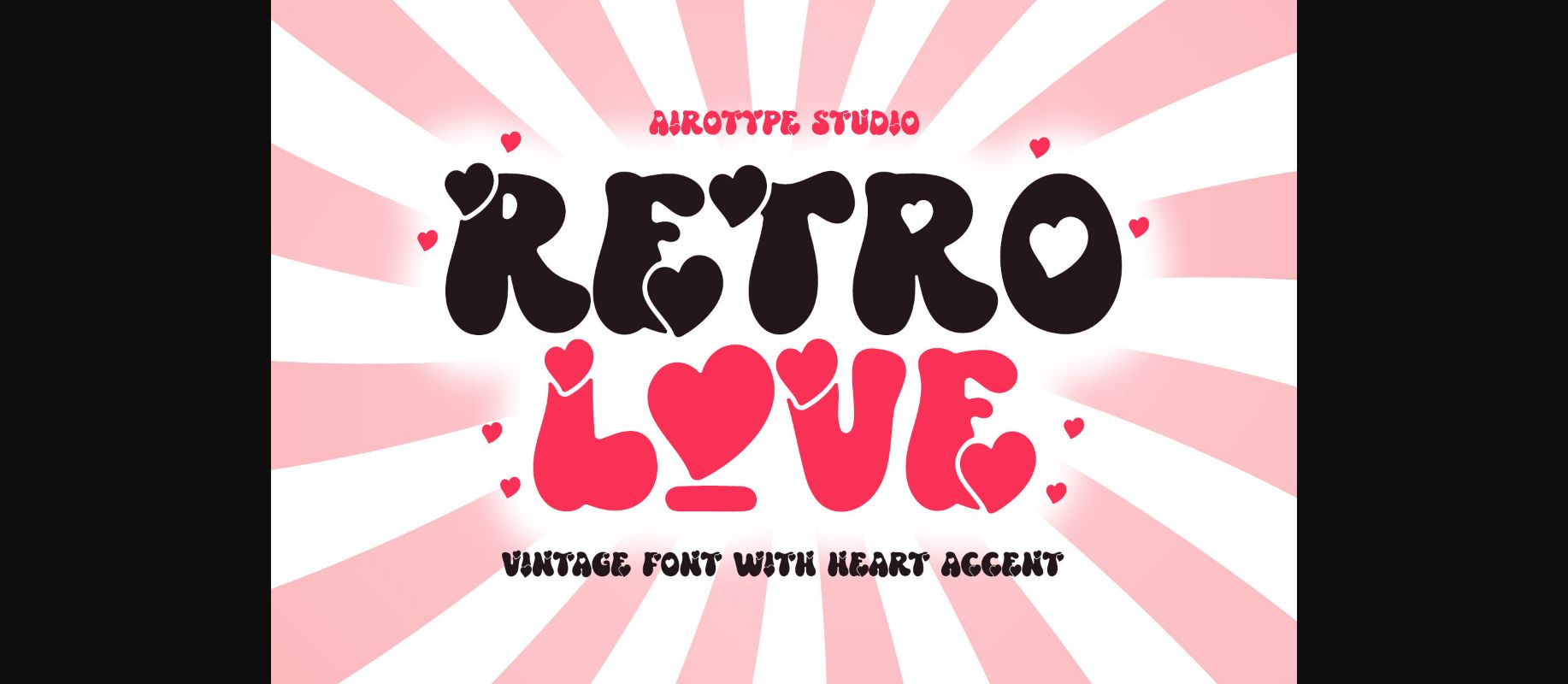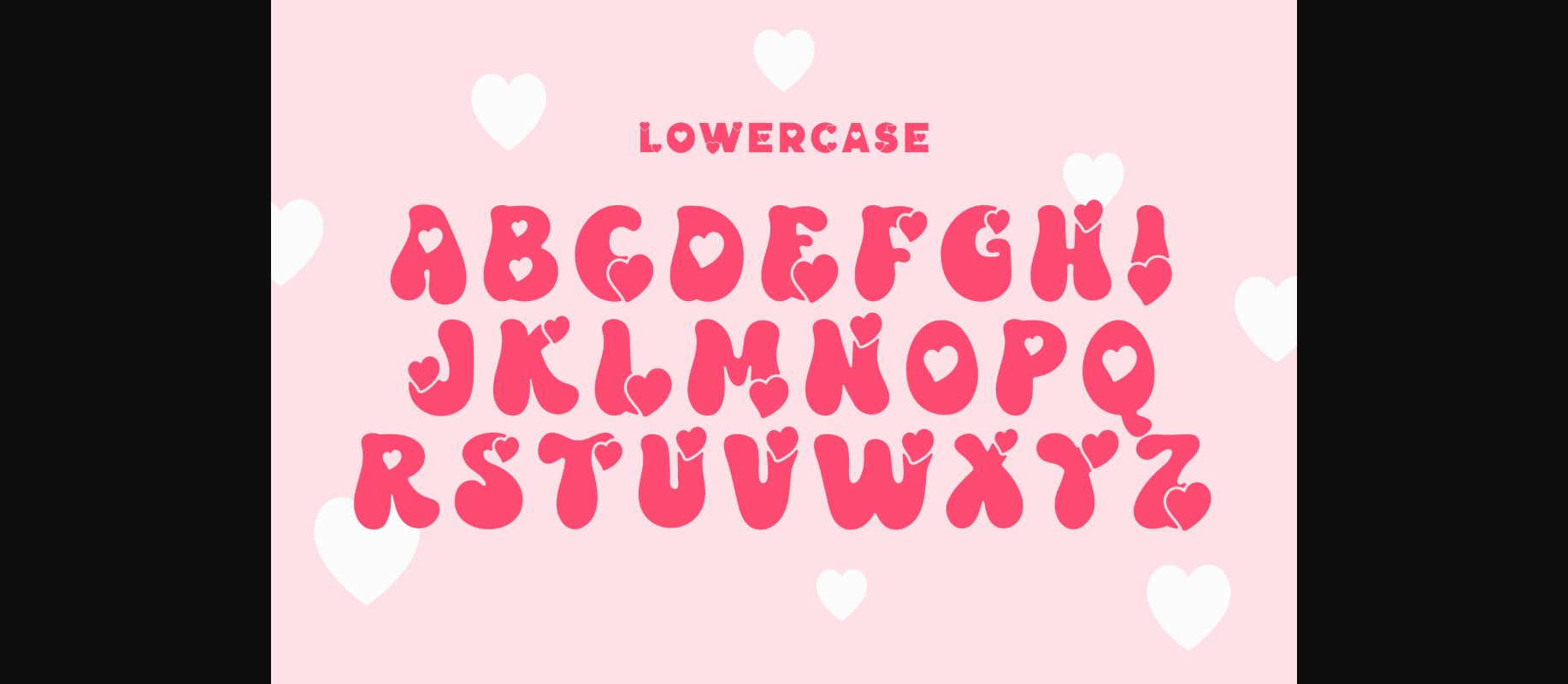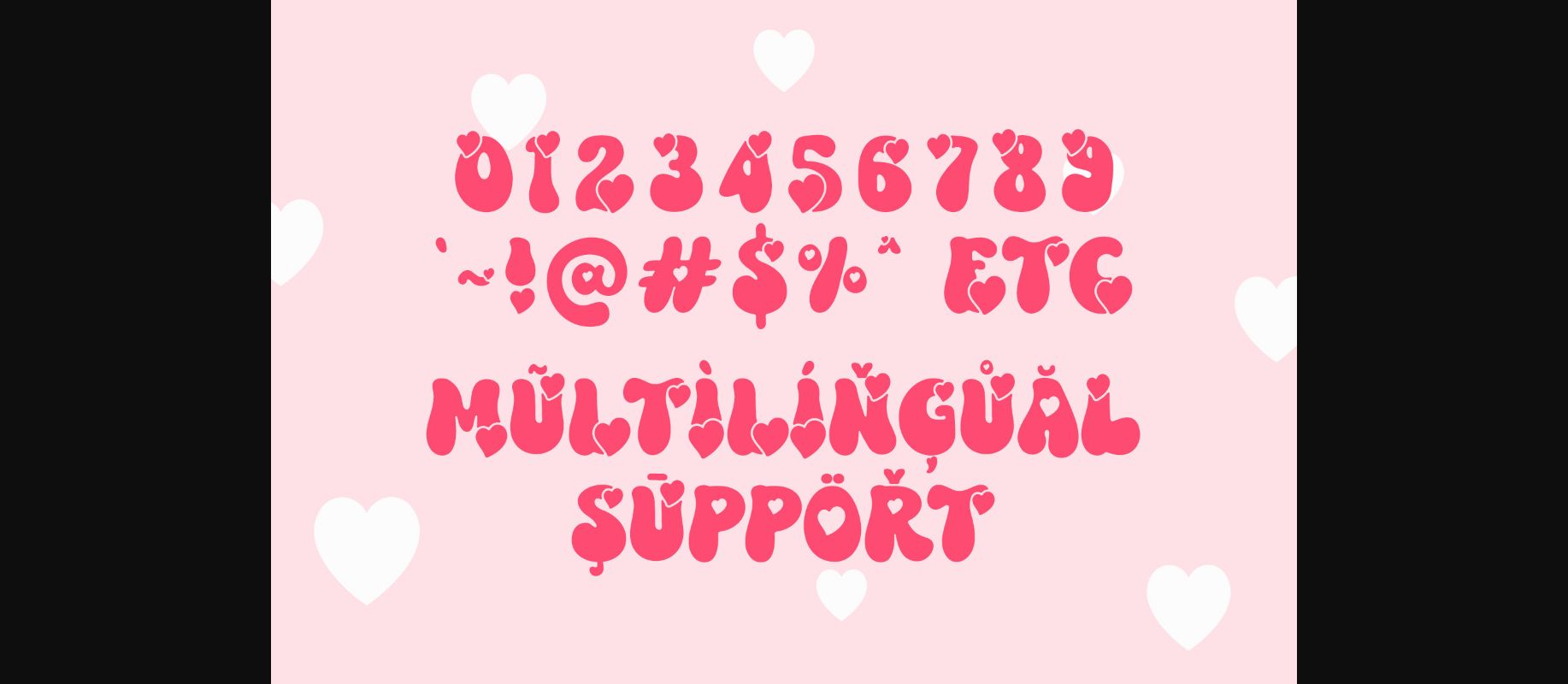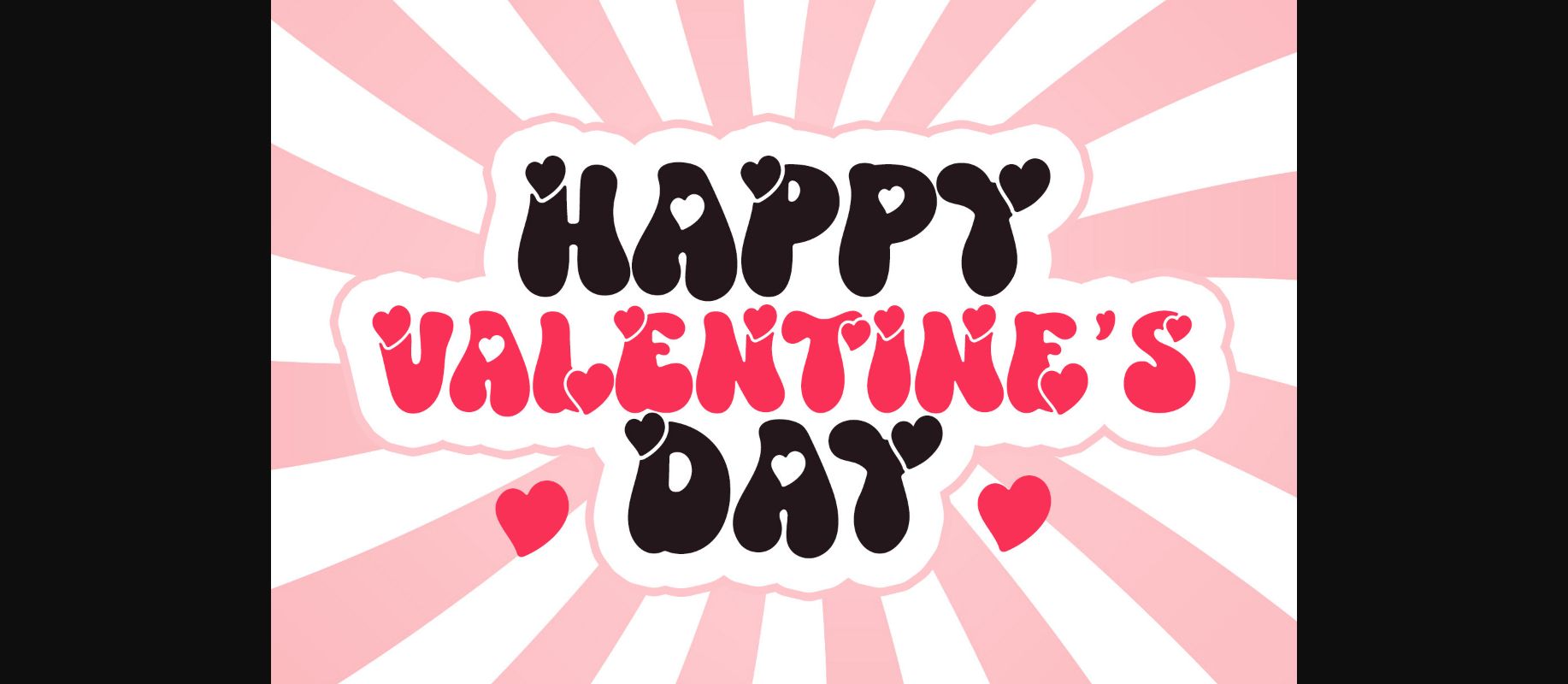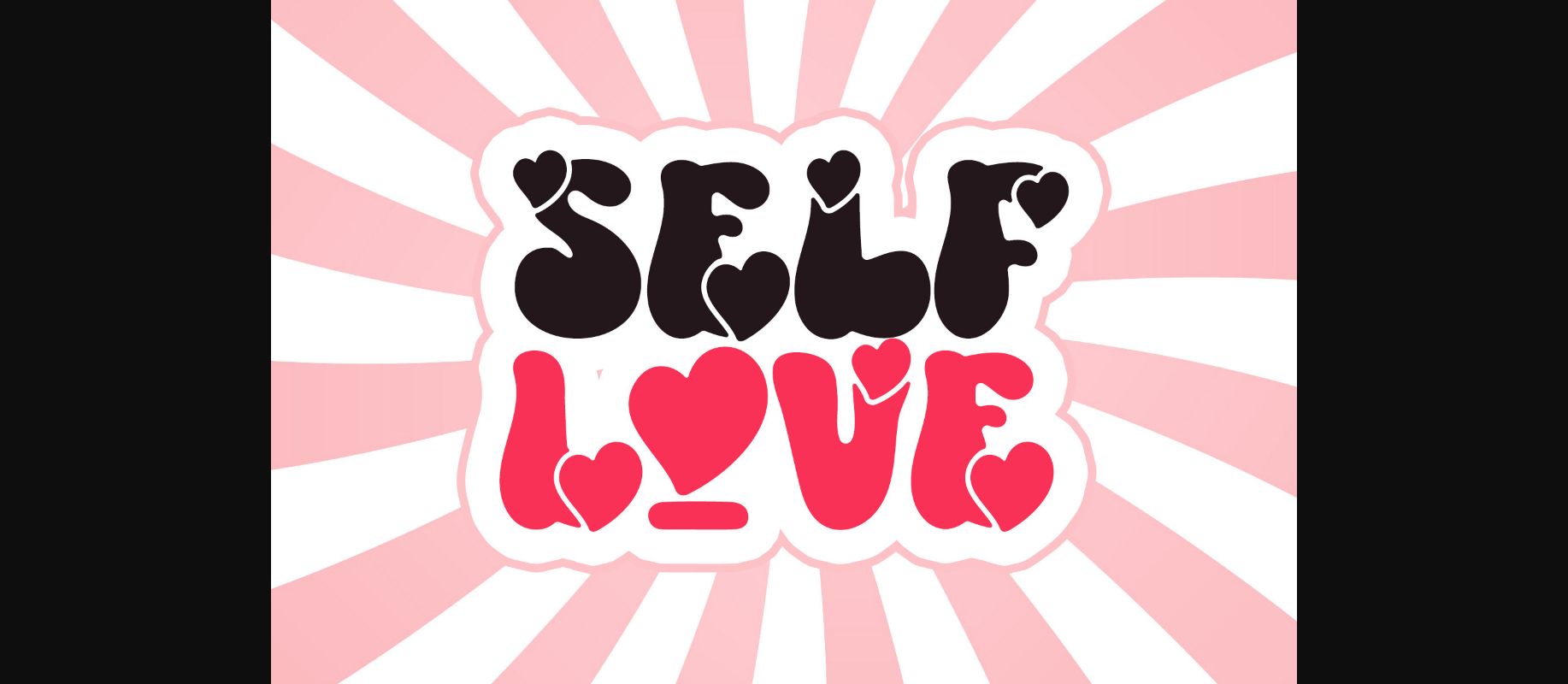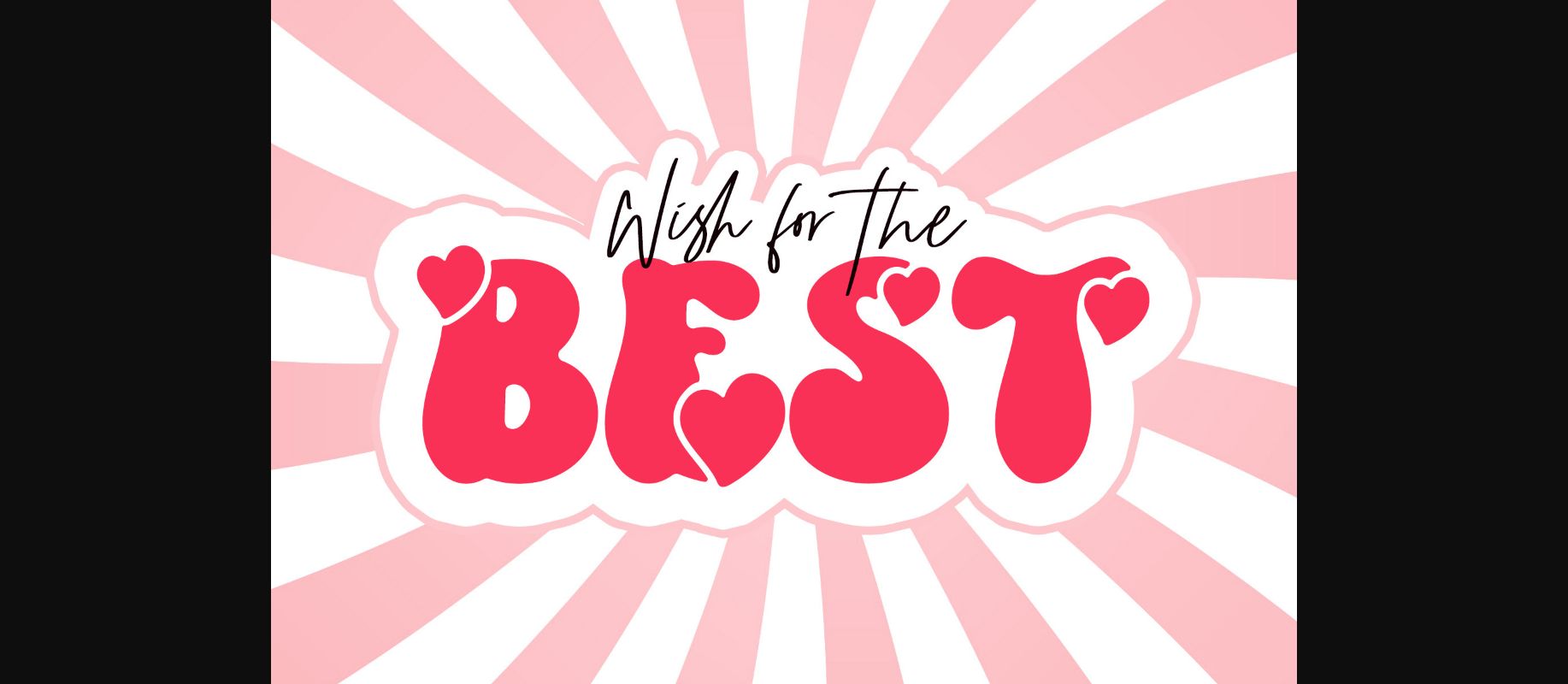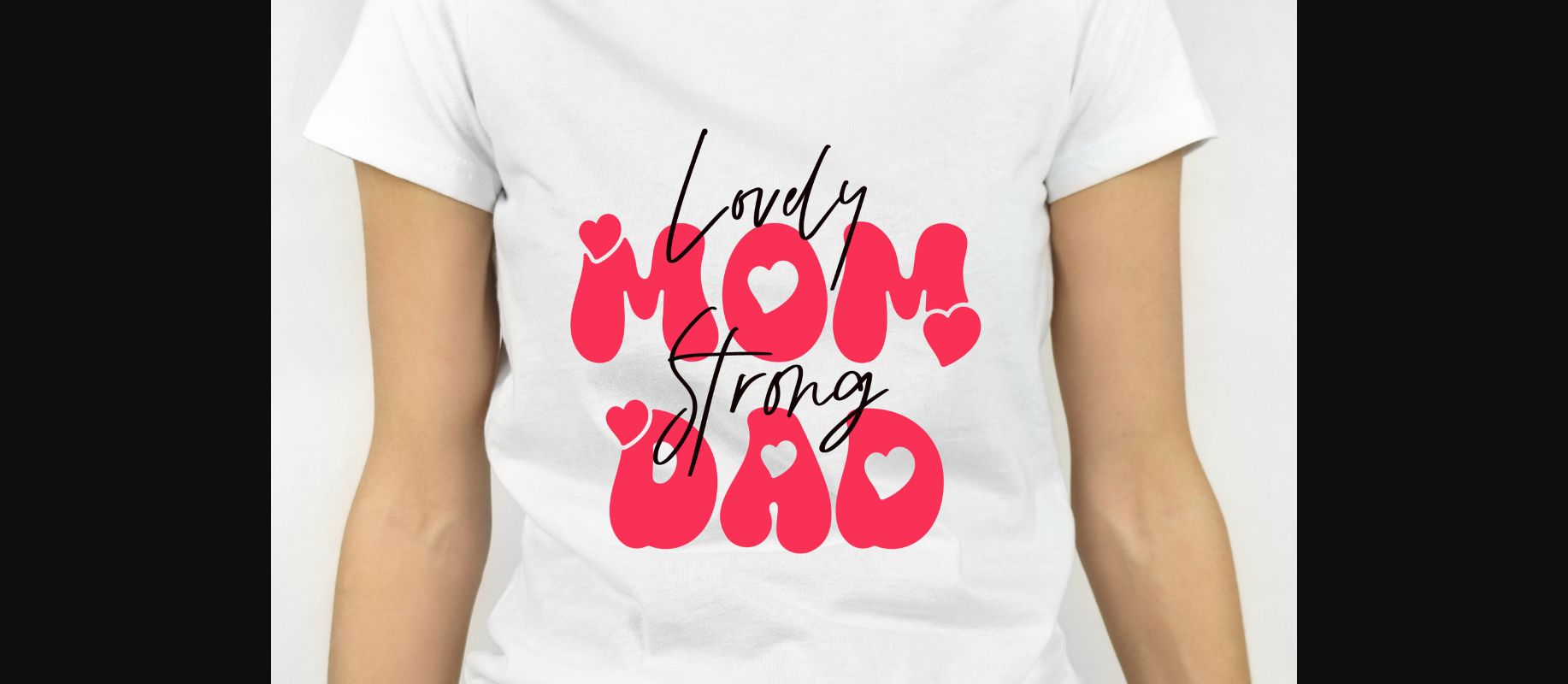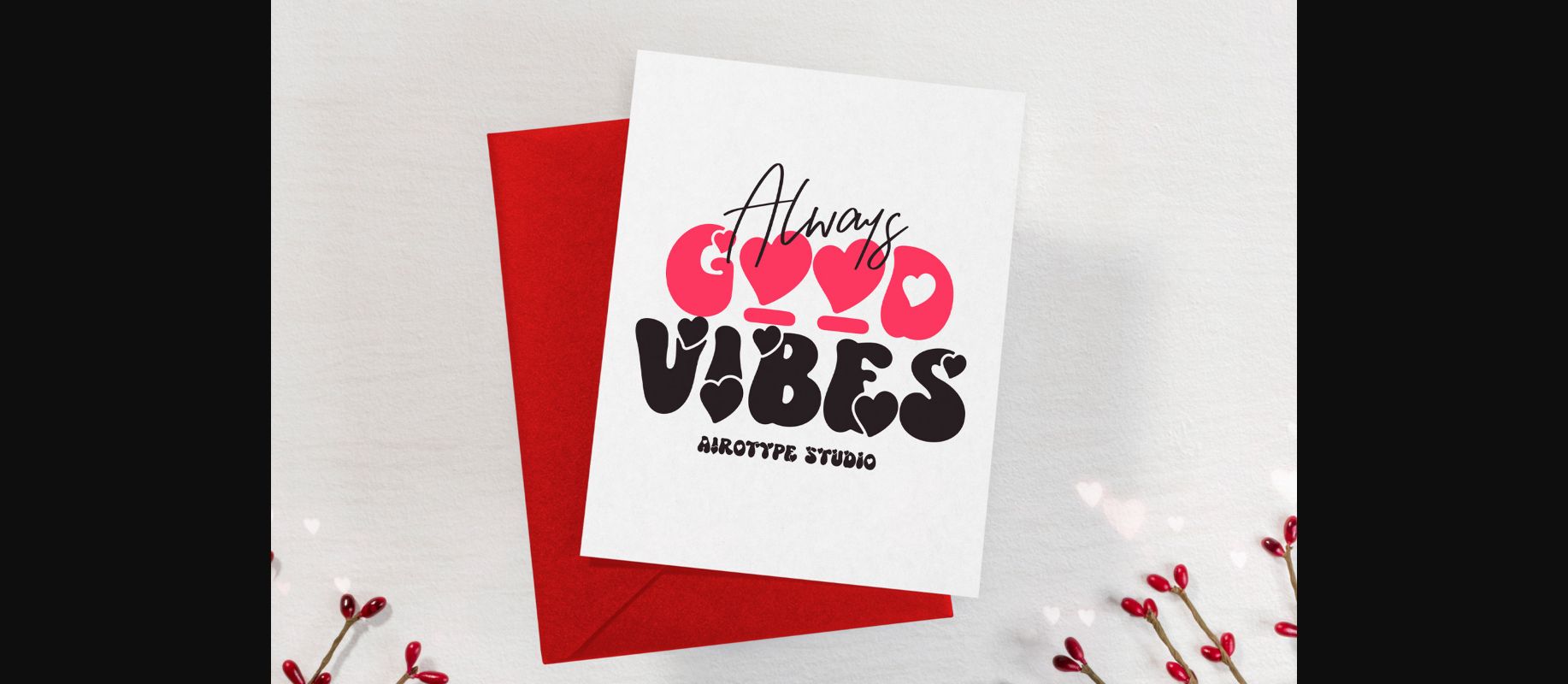
Retro Love Font
About Retro Love Font
Retro Love is a vintage bubble font with a heart accent. This is cute, playful, and fun.
Retro Love is a suitable font for a design that needs lovely and retro vibes, such as Valentine’s Day, t-shirts, stickers, weddings, and many others.